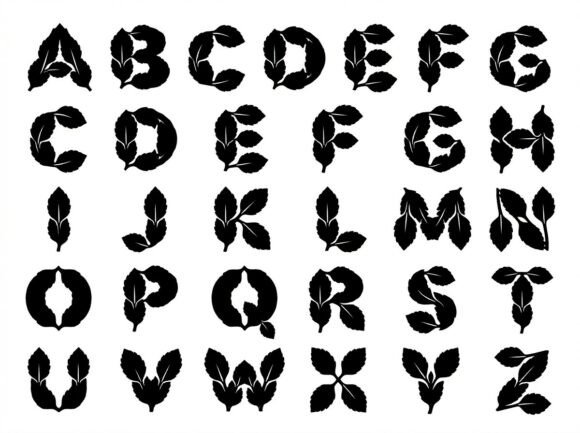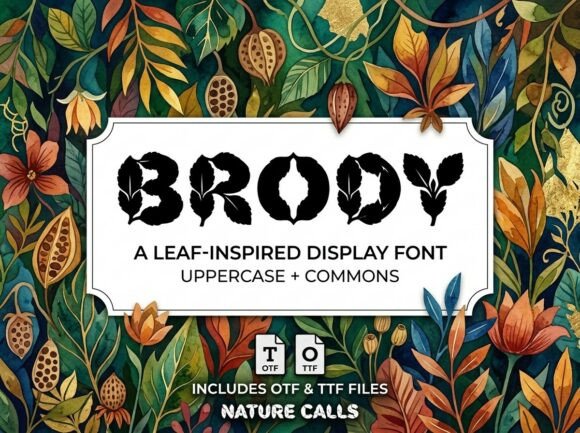
Introducing Brody Font: The Avant-Garde Display Typeface for Bold Creations
In the world of typography, a new font has emerged that is sure to turn heads and make a statement. Say hello to Brody Font, an avant-garde decorative display font engineered to be the focal point of any composition. With its commanding visual personality and unique artistic flourishes, this typeface is perfect for creators who refuse to blend in.
Unleash Your Creativity with Brody Font
Brody Font is characterized by its strong, artistic soul and high-end, polished finish. This makes it as suitable for luxury packaging as it is for experimental editorial layouts. Whether you’re a designer, craftsperson, or simply someone who appreciates beautiful typography, Brody Font is sure to inspire your next creative project.
Ideal for High-Impact Designs
So, what can you use Brody Font for? The possibilities are endless, but here are some ideas to get you started:
- High-impact headlines: Make a statement with Brody Font’s bold, attention-grabbing letters.
- Signature logos & branding: Create a lasting impression with a custom logo or brand identity that showcases your unique style.
- Conceptual packaging: Elevate your product packaging with a touch of sophistication and elegance.
- Poster & social media design: Stand out from the crowd with eye-catching posters and social media graphics that showcase your creativity.
A Note on Font Style
Please note that Brody Font is an All-Caps (Uppercase Only) display typeface. By omitting lowercase characters, the designer has focused entirely on the intricate craftsmanship of every individual letter, ensuring each one acts as a standalone work of art.
Why Choose Brody Font?
So, why choose Brody Font over other typefaces? Here are just a few reasons:
- Unique artistic flourishes: Brody Font features intricate details and artistic flourishes that set it apart from other fonts.
- High-end polish: This font has a sophisticated, refined feel that’s perfect for luxury brands and high-end designs.
- Versatility: Brody Font can be used for a wide range of design projects, from packaging to posters and social media graphics.
In conclusion, Brody Font is an exceptional avant-garde display typeface that’s sure to make a statement in any design project. With its unique artistic flourishes, high-end polish, and versatility, it’s the perfect choice for creators who refuse to blend in. So why wait? Download Brody Font today and unleash your creativity!
- Avant-garde decorative display font
- Commanding visual personality and unique artistic flourishes
- High-end, polished finish
- All-Caps (Uppercase Only) display typeface